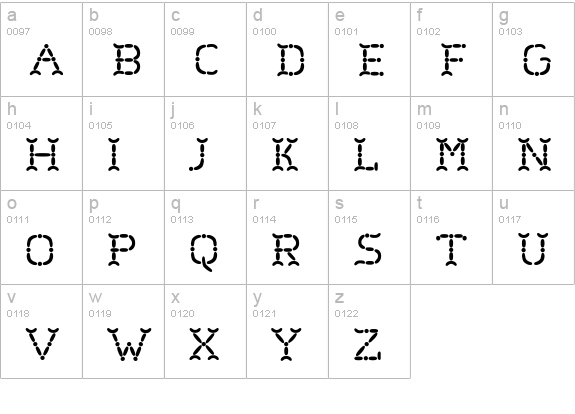
Introducing Butcher font, a bold and impactful typeface that exudes strength and character. This font is perfect for making a statement in your designs, whether you're creating posters, logos, or branding materials. With its sharp edges and clean lines, Butcher font commands attention and demands to be noticed. Best of all, Butcher font is available for free download at FontsMarket.com. That's right, you can add this powerful font to your collection without spending a dime. Don't miss out on the opportunity to elevate your designs with the striking Butcher font. Download it today and unleash its potential in your creative projects.